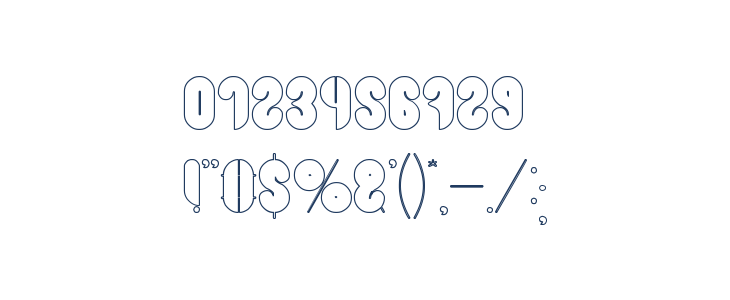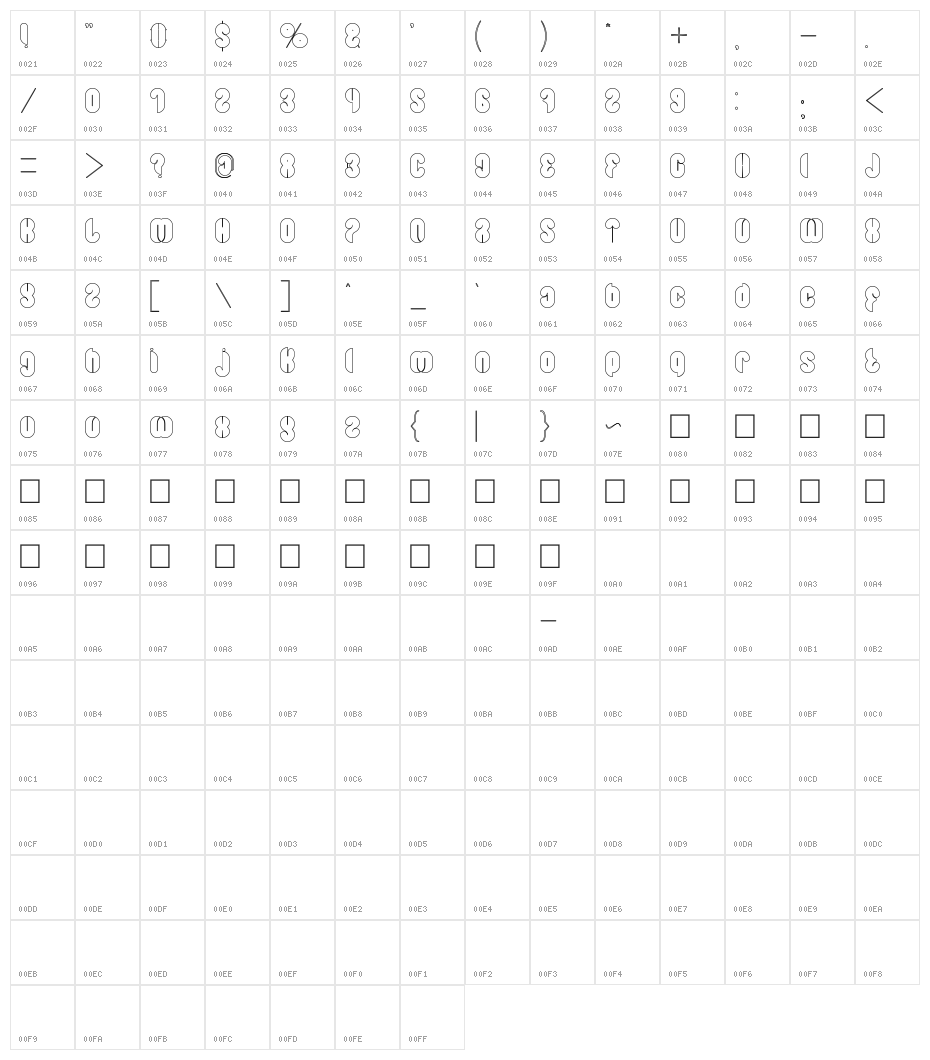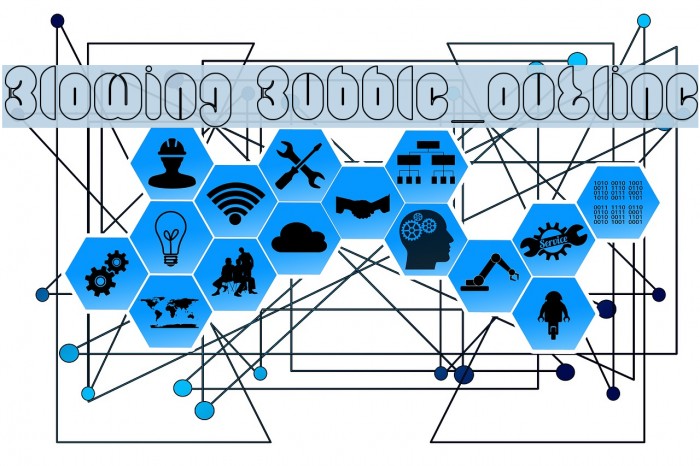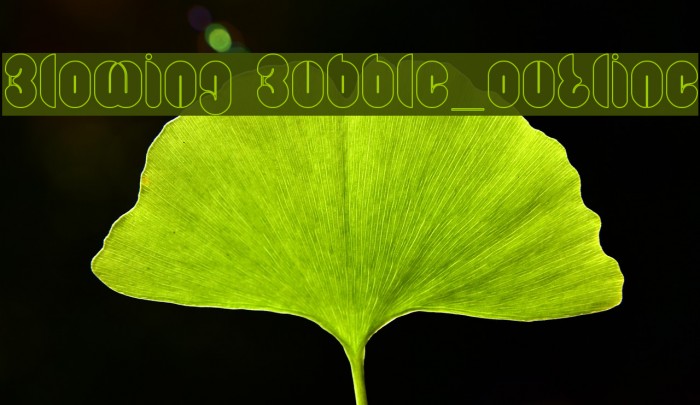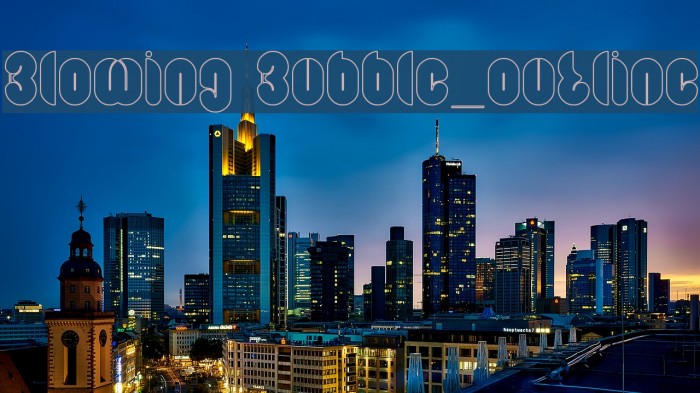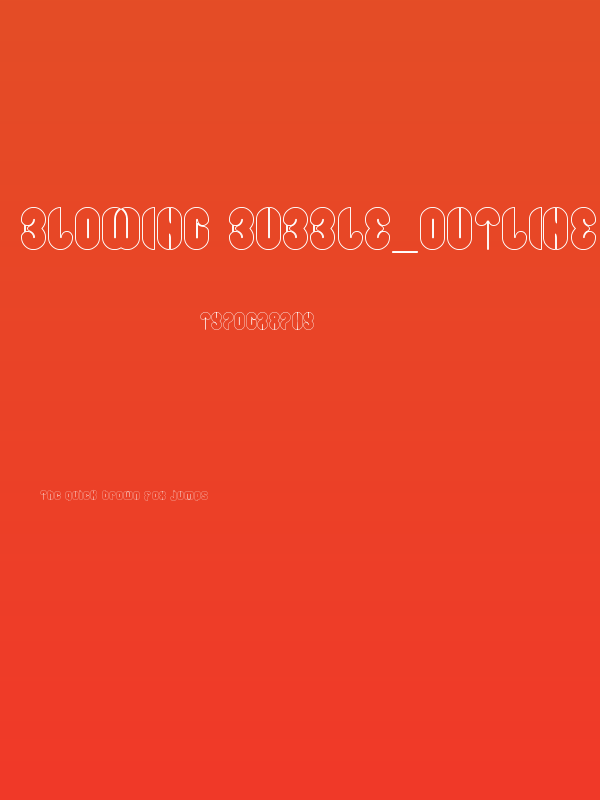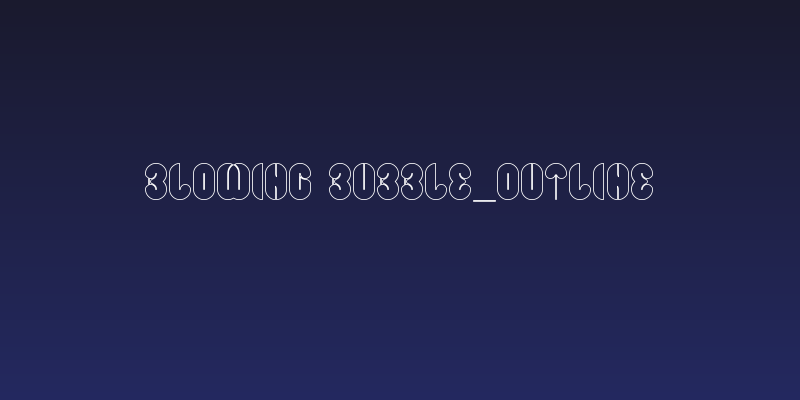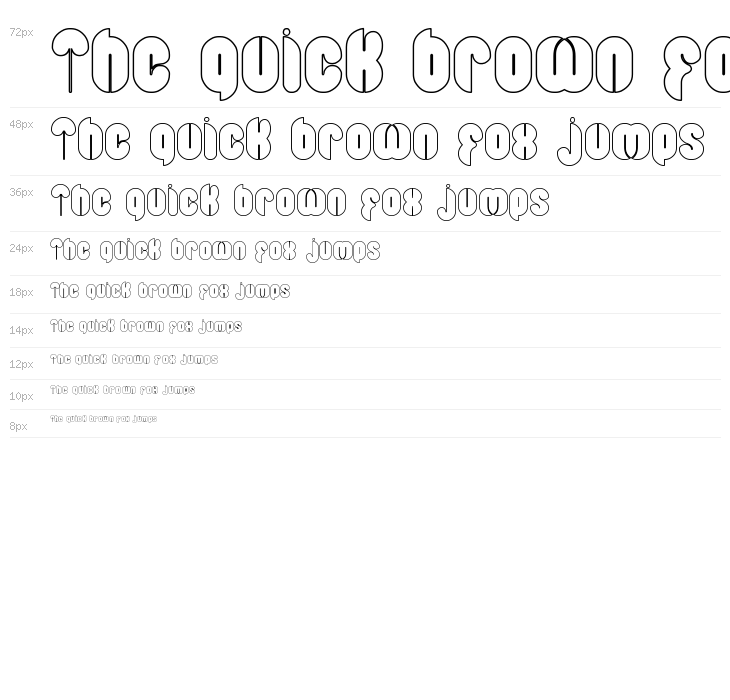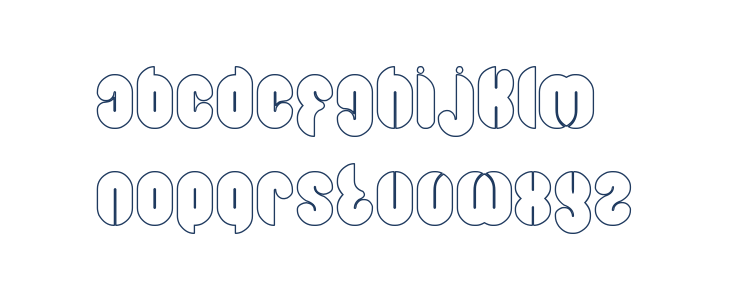
Blowing Bubble_outline Font
Blowing Bubble_outline Description
This playful and whimsical font features bold, rounded characters with a distinct outline style that resembles inflated bubbles. The letters are evenly spaced and maintain a consistent thickness throughout, giving it a uniform appearance. The font's unique design includes both uppercase and lowercase letters, numbers, and a variety of special characters. Its outline style adds a layer of depth, making it stand out in any design project. The font's playful nature makes it ideal for projects that require a fun and lighthearted touch.